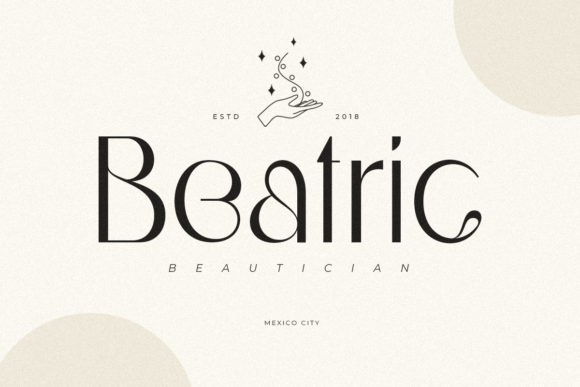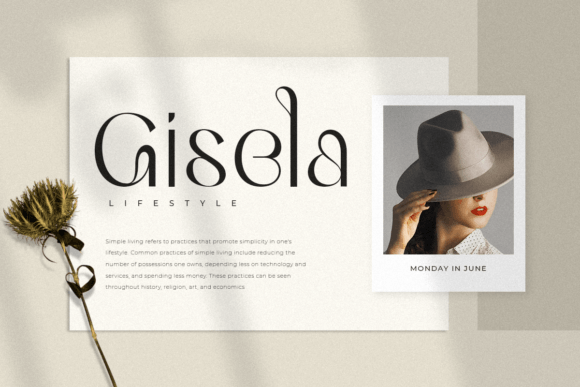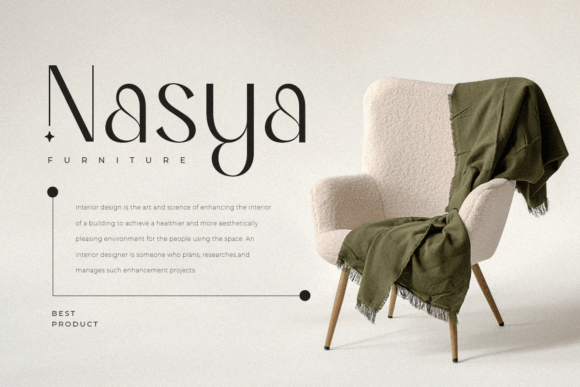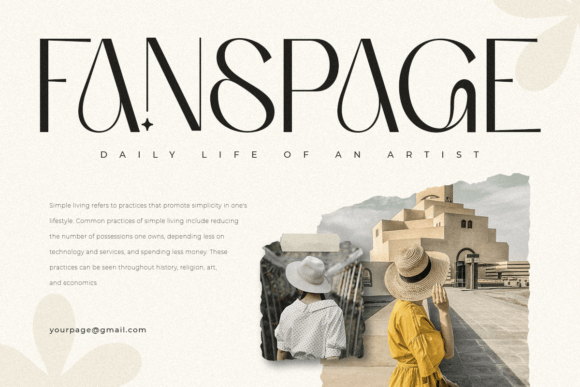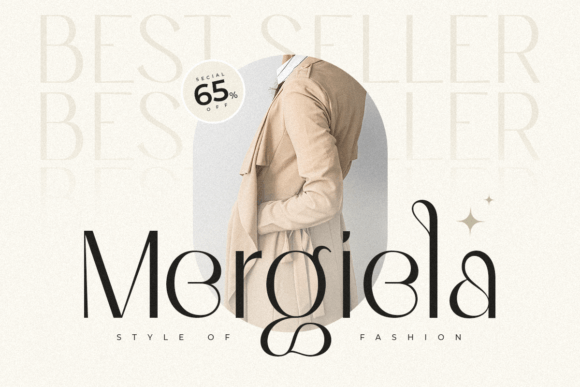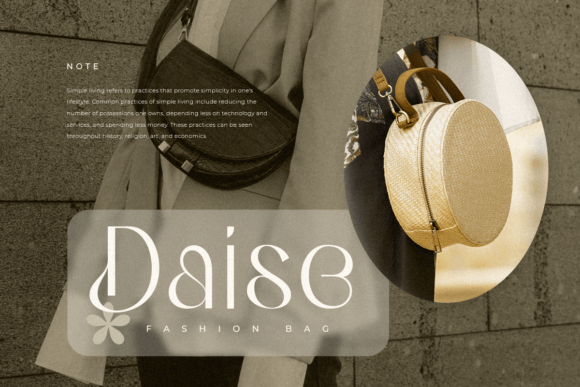
Introducing Callge Font: Elevate Your Designs with Modern Elegance
In the world of typography, fonts play a crucial role in conveying the message and aesthetic of a design. For designers and crafters looking for a modern and stylish sans-serif font, Callge is an excellent choice. This contemporary font combines clean lines with subtle curves, making it perfect for editorial designs, luxury branding, and web typography.
The Characteristics of Callge Font
Callge is a sans-serif font that boasts a sophisticated presence, enhancing every composition it’s used in. Its clean lines and subtle curves create a harmonious balance, giving it a unique and modern look. The font’s design is carefully crafted to provide a luxurious feel, making it ideal for high-end branding and editorial designs.
Key Features of Callge Font
- Modern and Stylish: Callge’s design is inspired by contemporary typography, making it perfect for modern designs.
- Clean Lines and Subtle Curves: The font’s clean lines and subtle curves create a beautiful balance, giving it a sophisticated look.
- Sans-Serif: Callge is a sans-serif font, making it easy to read and perfect for digital and print designs.
- Luxury Branding: The font’s luxurious feel makes it ideal for high-end branding and editorial designs.
- Web Typography: Callge is optimized for web typography, ensuring that your online designs look great on any device.
Use Cases for Callge Font
Callge’s versatility makes it suitable for a wide range of design projects. Here are some use cases where Callge excels:
- Editorial Designs: Callge is perfect for magazines, newspapers, and books, adding a touch of modern elegance to your editorial designs.
- Luxury Branding: The font’s luxurious feel makes it ideal for high-end branding, packaging, and advertising.
- Web Typography: Callge is optimized for web typography, making it perfect for websites, blogs, and online applications.
- Digital Art: Callge’s modern and stylish design makes it a great choice for digital art, illustrations, and graphics.
Why Choose Callge Font?
With so many fonts available, why choose Callge? Here are some reasons why Callge stands out:
- Unique Design: Callge’s unique design sets it apart from other fonts, making it a great choice for designers looking for something new and exciting.
- High-Quality: Callge is a high-quality font, carefully crafted to ensure that it looks great in any design.
- Versatile: Callge is a versatile font, suitable for a wide range of design projects, from editorial designs to luxury branding.
- Easy to Read: The font’s clean lines and subtle curves make it easy to read, even at small sizes.
In conclusion, Callge is a modern and stylish sans-serif font that is perfect for designers and crafters looking for a touch of modern elegance in their creative projects. Its clean lines, subtle curves, and sophisticated presence make it ideal for editorial designs, luxury branding, and web typography. With its unique design, high-quality, and versatility, Callge is a great choice for any design project.